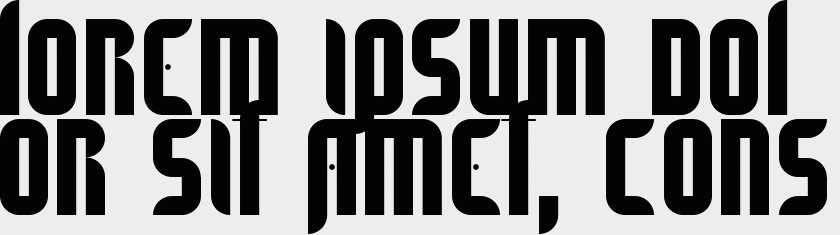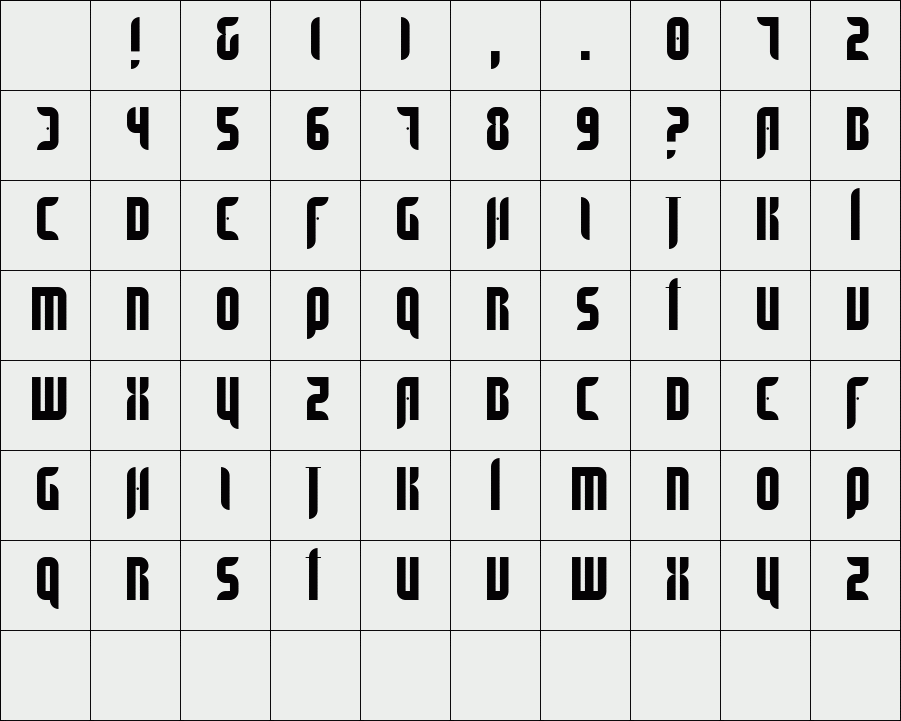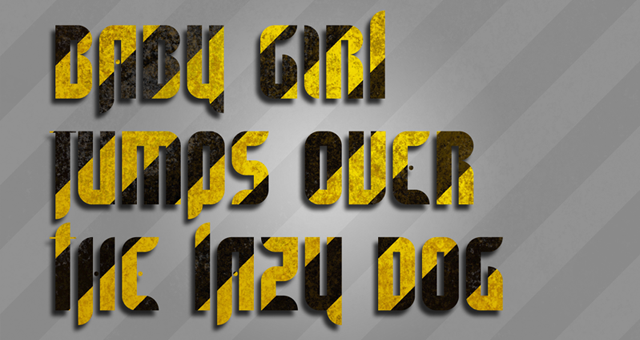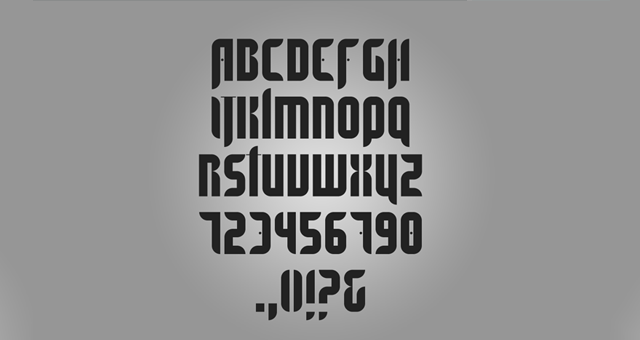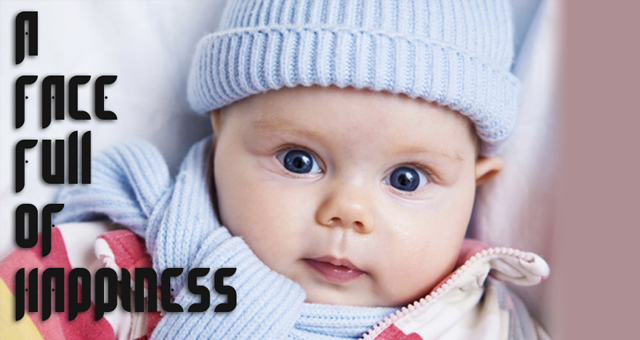
BabyGirl
A display font with very thick stems following strict grid lines. Can be used for posters, flyers, headlines etc.
Designer: Vasileios Stergioudis